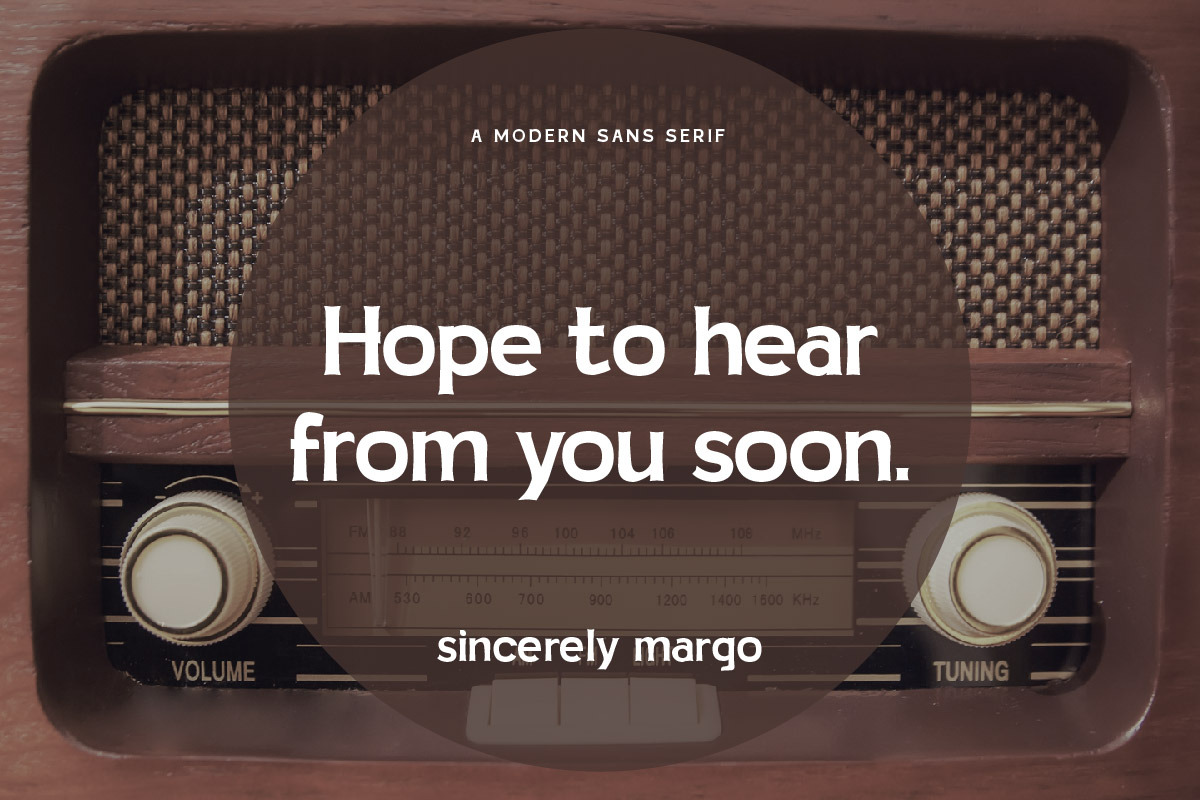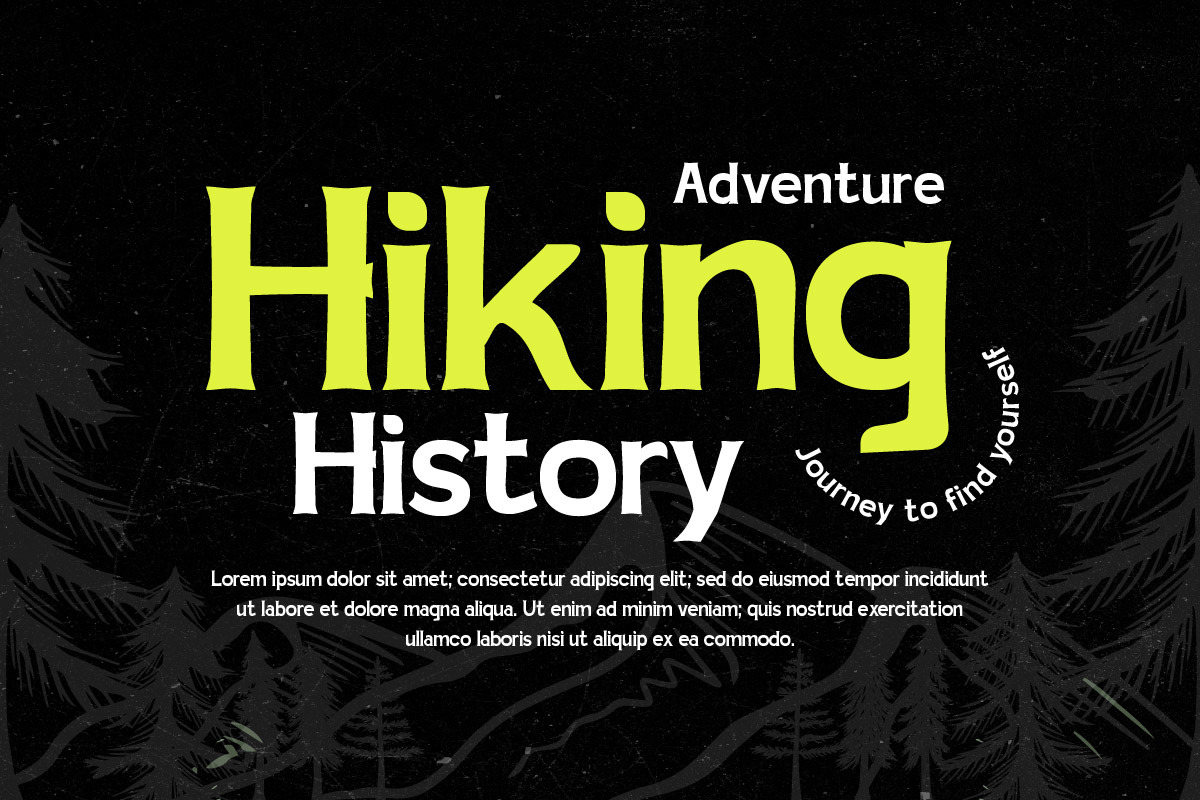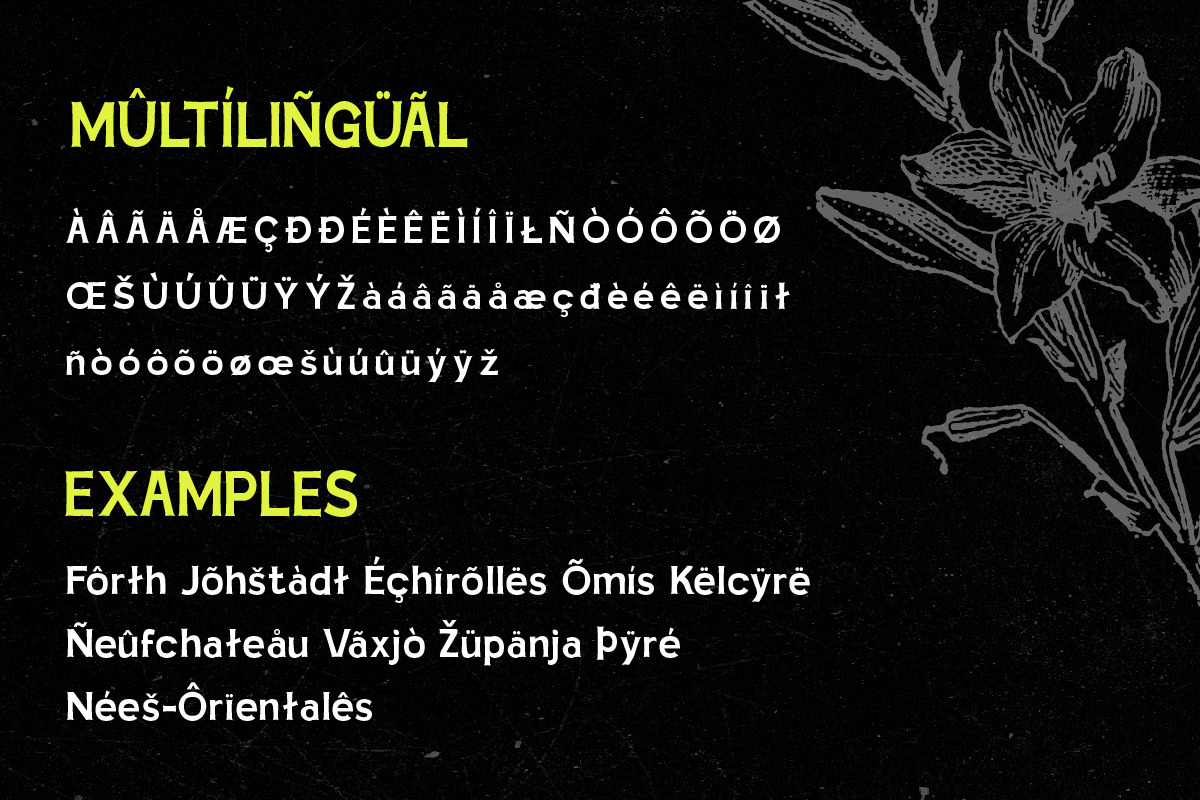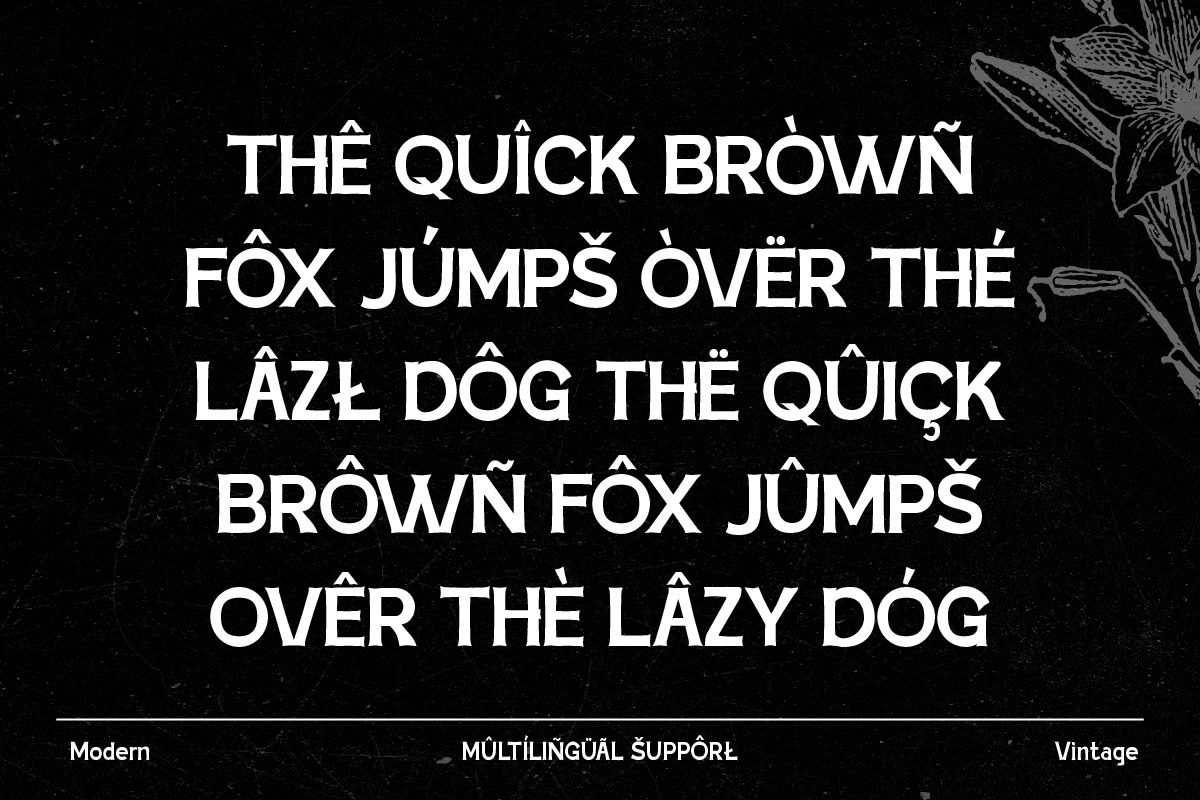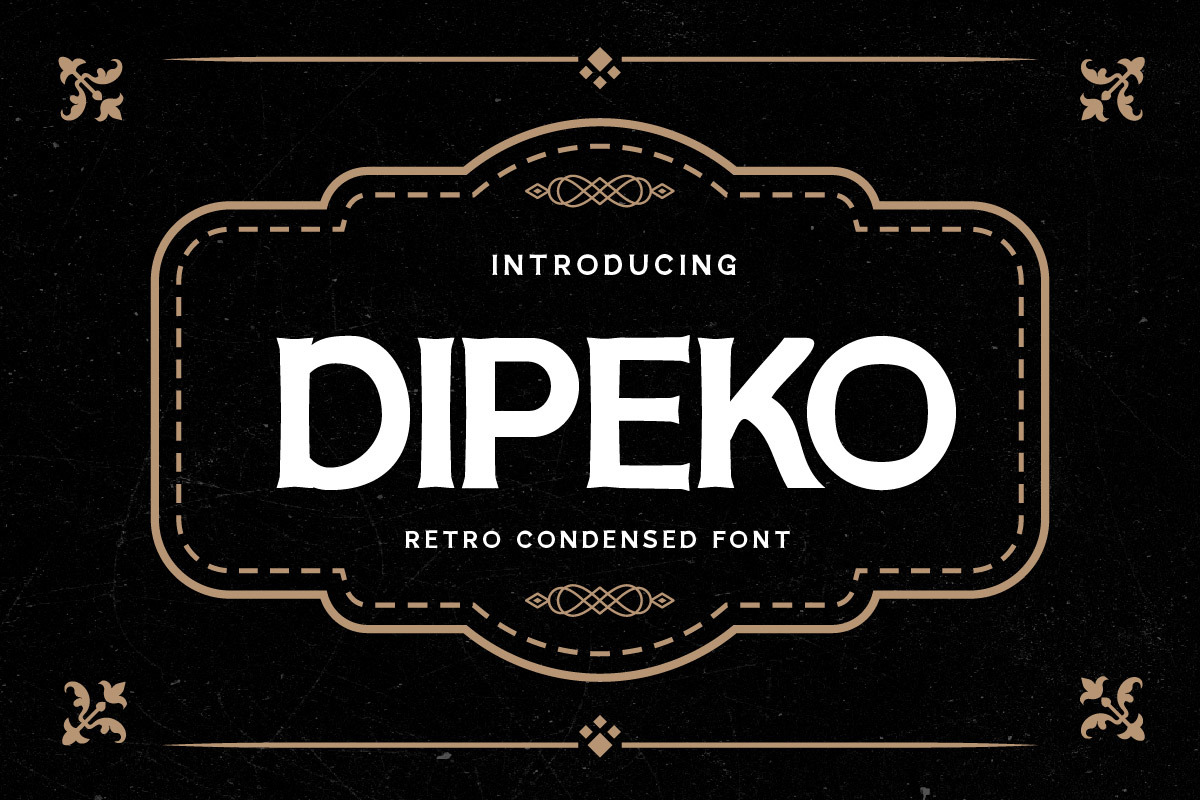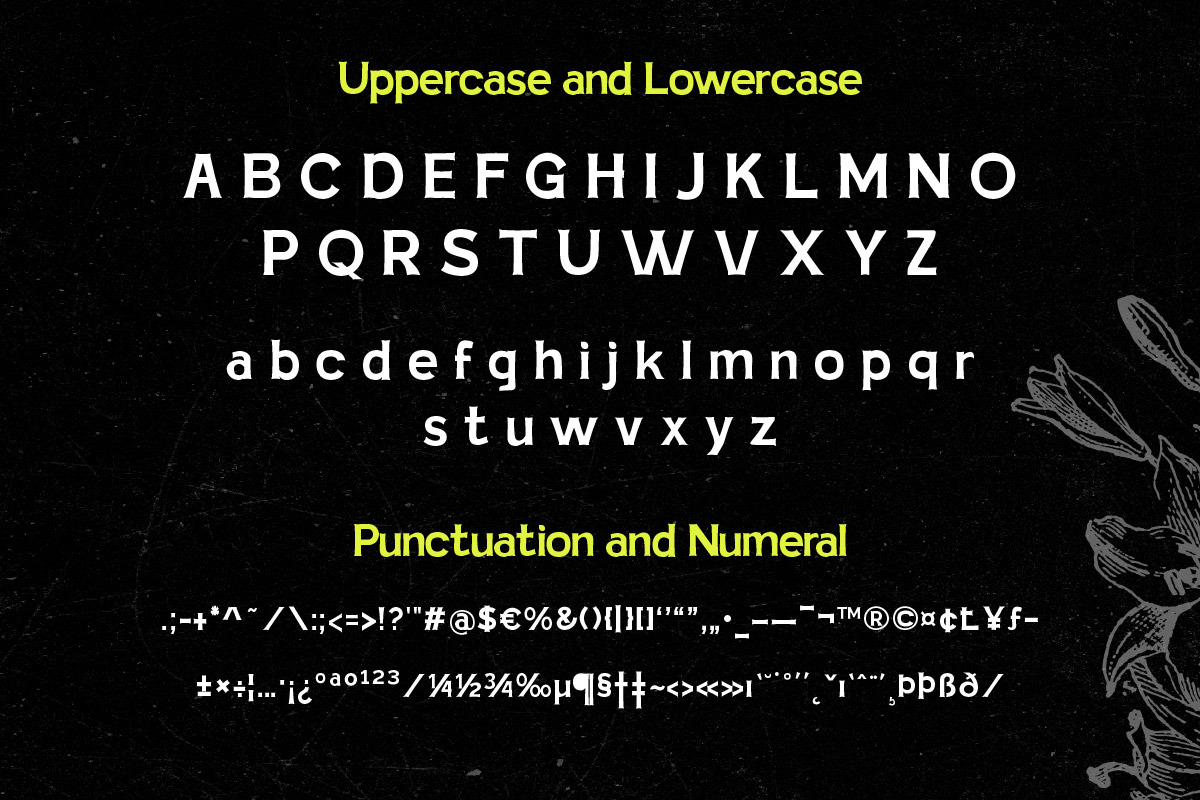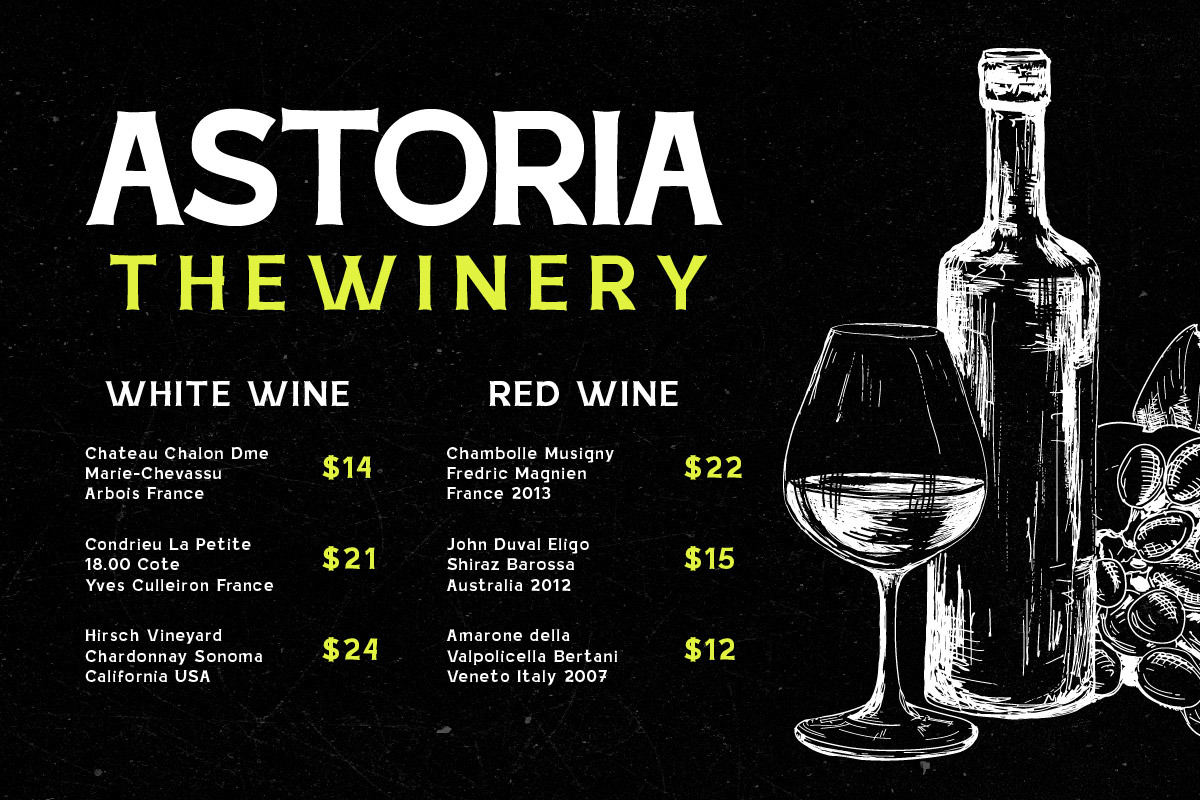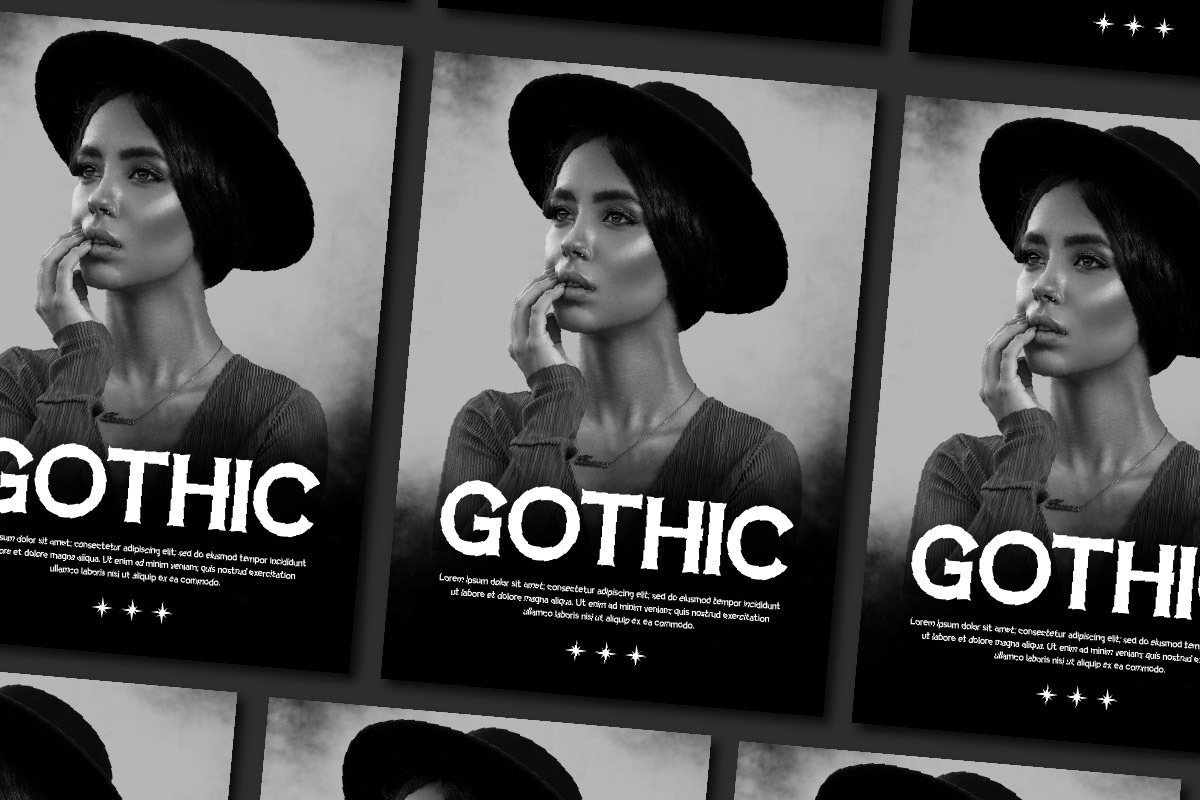
Dipeko - Retro Font
Dipeko is a retro font that combines vintage charm with modern style. Its unique characters are inspired by classic design, but with a modern twist. Dipeko is perfect for designs where you want to blend old and new.
- Fonts include Multilingual: Support for 85 languages. Afrikaans, Albanian, Asu, Basque, Bemba, Bena, Breton, Catalan, Chiga, Cornish, Croatian, Czech, Danish, Dutch, Embu, English, Esperanto, Estonian, Filipino, Finnish, French, Friulian, Galician, Gusii, Hungarian, Indonesian, Irish, Italian, Kabuverdianu, Kalenjin, Kamba, Kikuyu, Kinyarwanda, Latvian, Lithuanian, Lower, Sorbian, Luo, Luxembourgish, Luyia, Machame, Makhuwa-Meetto, Makonde, Malagasy, Maltese, Manx, Meru, Morisyen, North, Ndebele, Norwegian Bokmål, Norwegian Nynorsk, Nyankole, Oromo, Polish, Portuguese, Quechua, Romanian, Romansh, Rombo, Rundi, Rwa, Samburu, Sango, Sangu, Scottish, Gaelic, Sena, Serbian, Shambala, Shona, Slovak, Slovenian, Soga, Somali, Spanish, Swahili, Swedish, Swiss German, Taita, Teso, Turkish, Upper Sorbian, Uzbek (Latin), Volapük, Vunjo, Walser, Zulu.